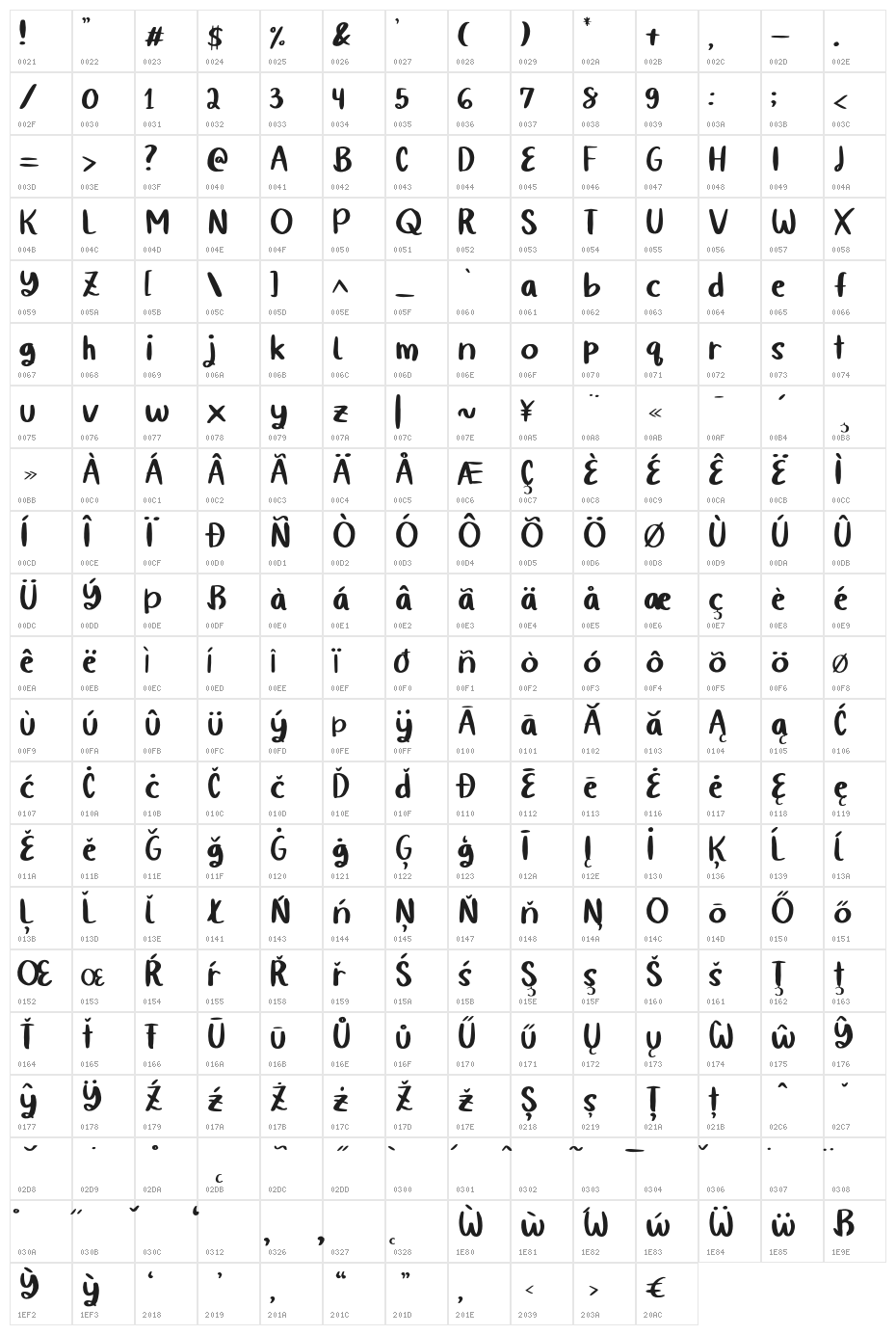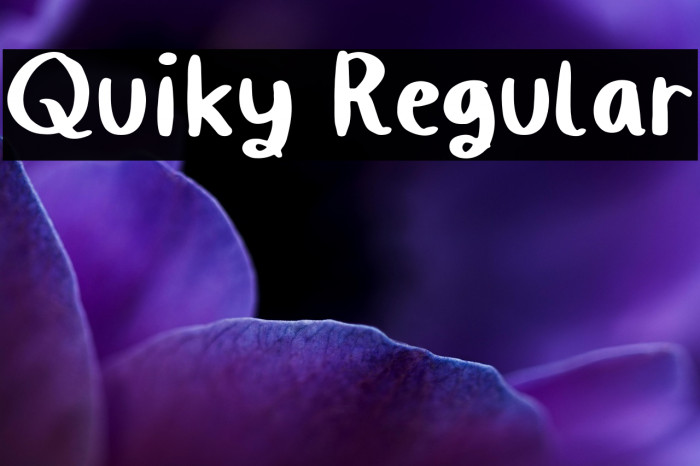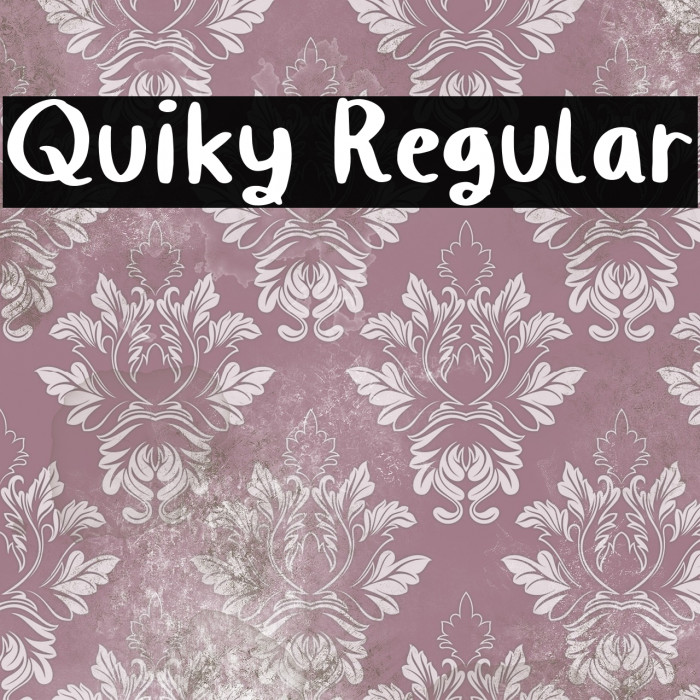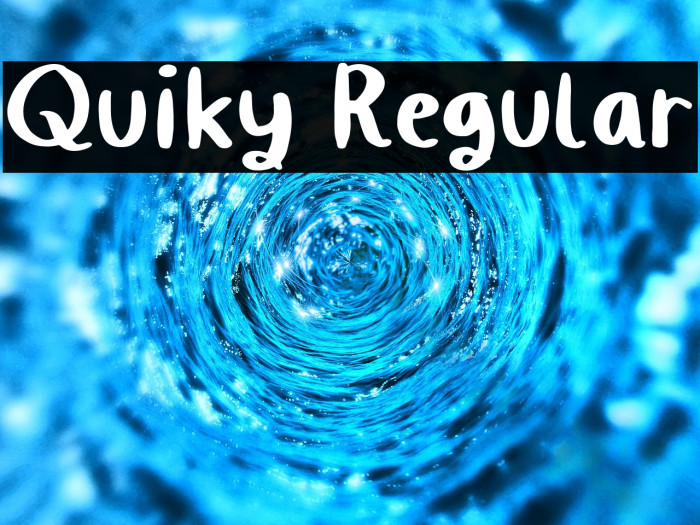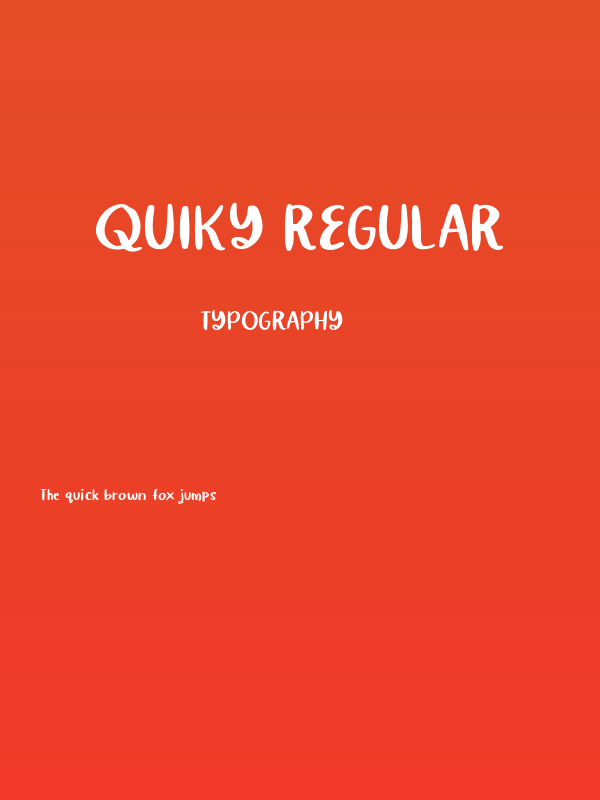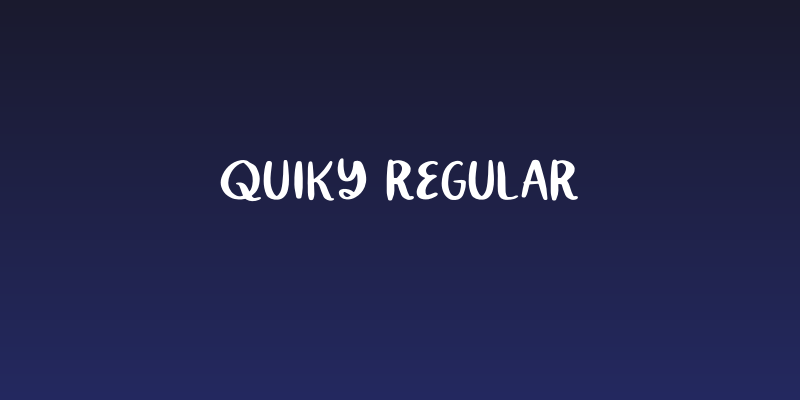
Quiky Regular Font
Quiky Regular Description
This playful and energetic font features bold, rounded strokes that give it a lively and approachable appearance. The characters are slightly irregular, adding a whimsical touch that enhances its charm. The uppercase and lowercase letters maintain a consistent style, with a smooth flow that suggests a handwritten quality. The numbers and special characters are equally expressive, ensuring a cohesive look across all text elements. The font's design is both modern and friendly, making it suitable for a variety of creative applications.
Overall StylePlayful, Modern
Use CaseHeadlines, Logos, Casual Text
Proposed ProjectsIdeal for children's books, playful branding, greeting cards, and casual invitations.